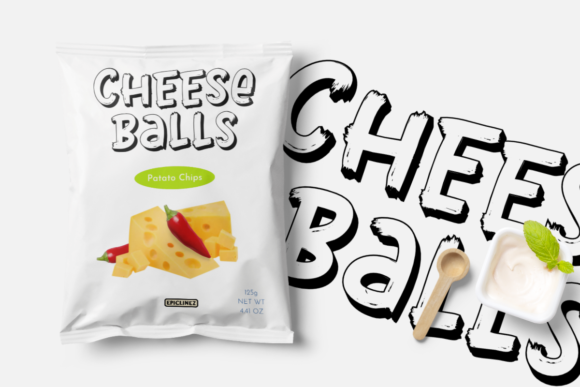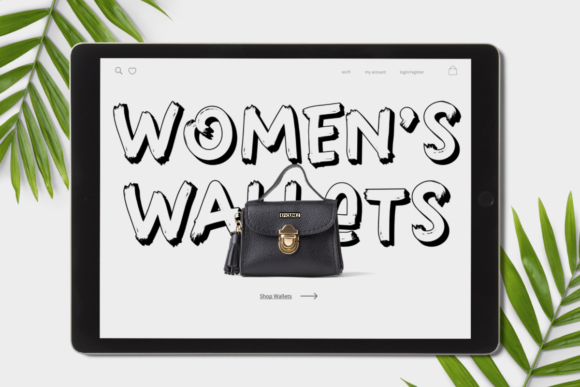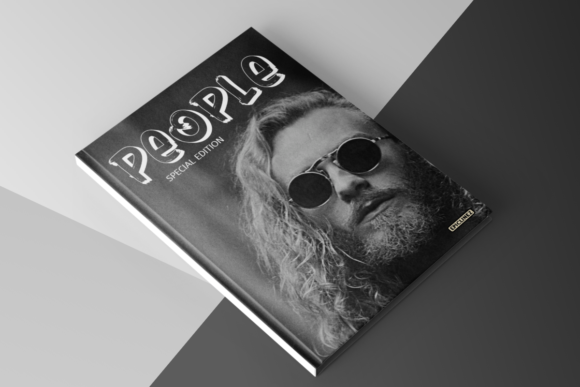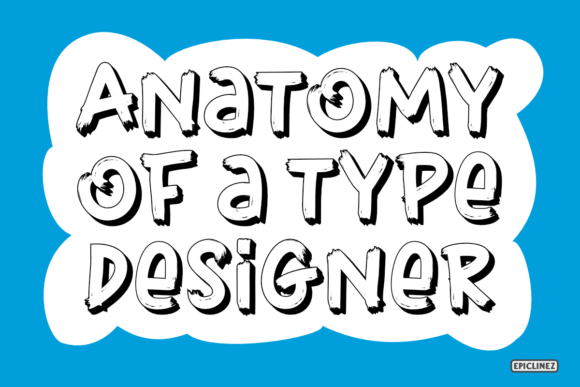
The Power of Bold: Unleashing the Potential of Bomb Track Font
I’ll never forget the time I was working on a project for a client who wanted a bold, eye-catching font to make their brand stand out. I scoured the internet, tried countless fonts, but nothing seemed quite right. That was until I stumbled upon Bomb Track Font. This bold and chunky lettered display font has been a game-changer for me, and I’m excited to share its awesomeness with you! 😊
- 💥 **Bold and attention-grabbing**: Bomb Track Font is perfect for making a statement. Its chunky letters demand attention and add a touch of edginess to any design.
- ✅ **Highly versatile**: Whether you’re working on a logo, poster, or social media graphic, this font adapts seamlessly to different contexts.
- 🎨 **Great for creative projects**: If you’re a crafter, artist, or DIY enthusiast, Bomb Track Font is an excellent choice for adding a personal touch to your work.
- ⚠️ **Limited use in body text**: Due to its bold nature, Bomb Track Font might not be the best choice for lengthy paragraphs. It’s better suited for headings, titles, or short phrases.
- ⚠️ **Glyph limitations**: While the font has a range of glyphs, it might not cover every special character or language. Be sure to test it with your specific needs.
The Story Behind Bomb Track Font: Designer Inspiration
Legend has it that Bomb Track Font was created by a team of designers who wanted to craft a font that would make a bold statement. Inspired by graffiti, street art, and the urban landscape, they poured their hearts into creating a font that’s both edgy and elegant. While the actual story might be different, one thing is certain: Bomb Track Font has become a go-to choice for designers and creatives looking to add a touch of personality to their work.
| Font Name | Bomb Track Font |
| Author | Epiclinez |
| What is Bomb Track Font best used for? | Bomb Track Font is perfect for bold, eye-catching titles, headings, and short phrases. It’s ideal for making a statement and adding a touch of edginess to your designs. |
| Is Bomb Track Font suitable for body text? | No, due to its bold nature, Bomb Track Font is not recommended for lengthy paragraphs. It’s better suited for headings, titles, or short phrases. |